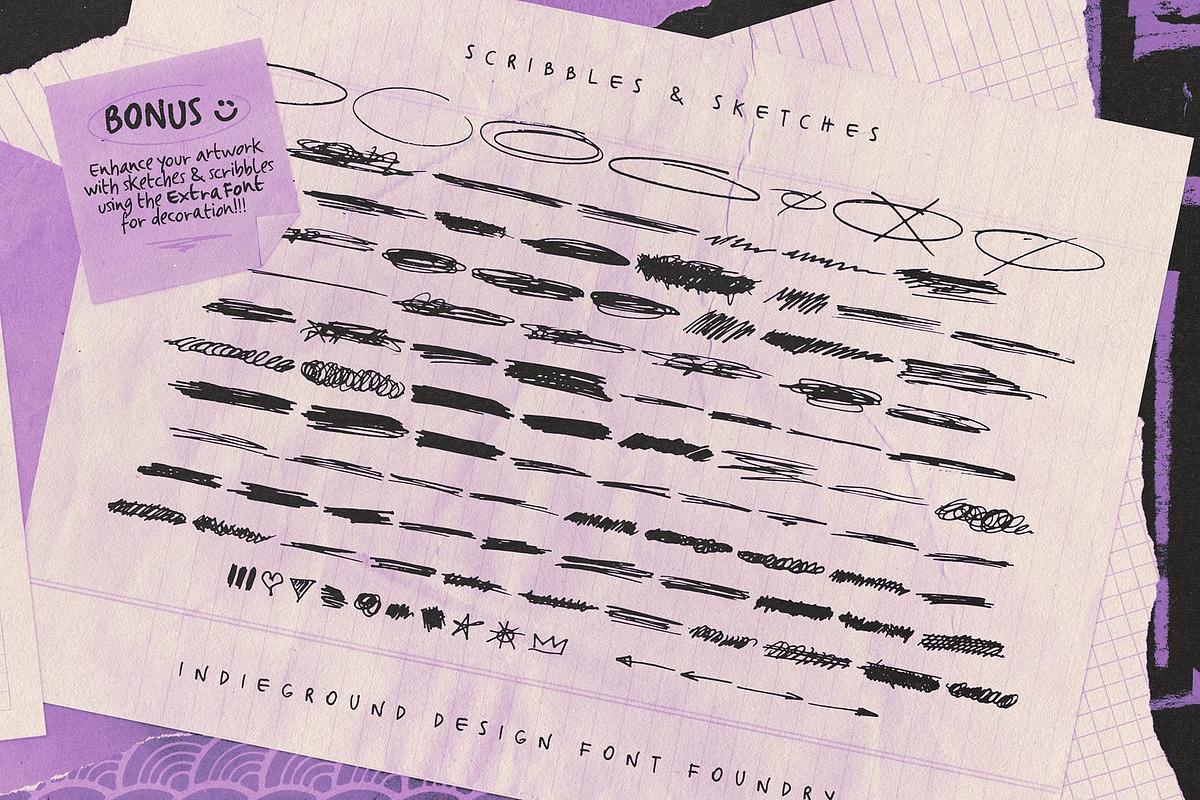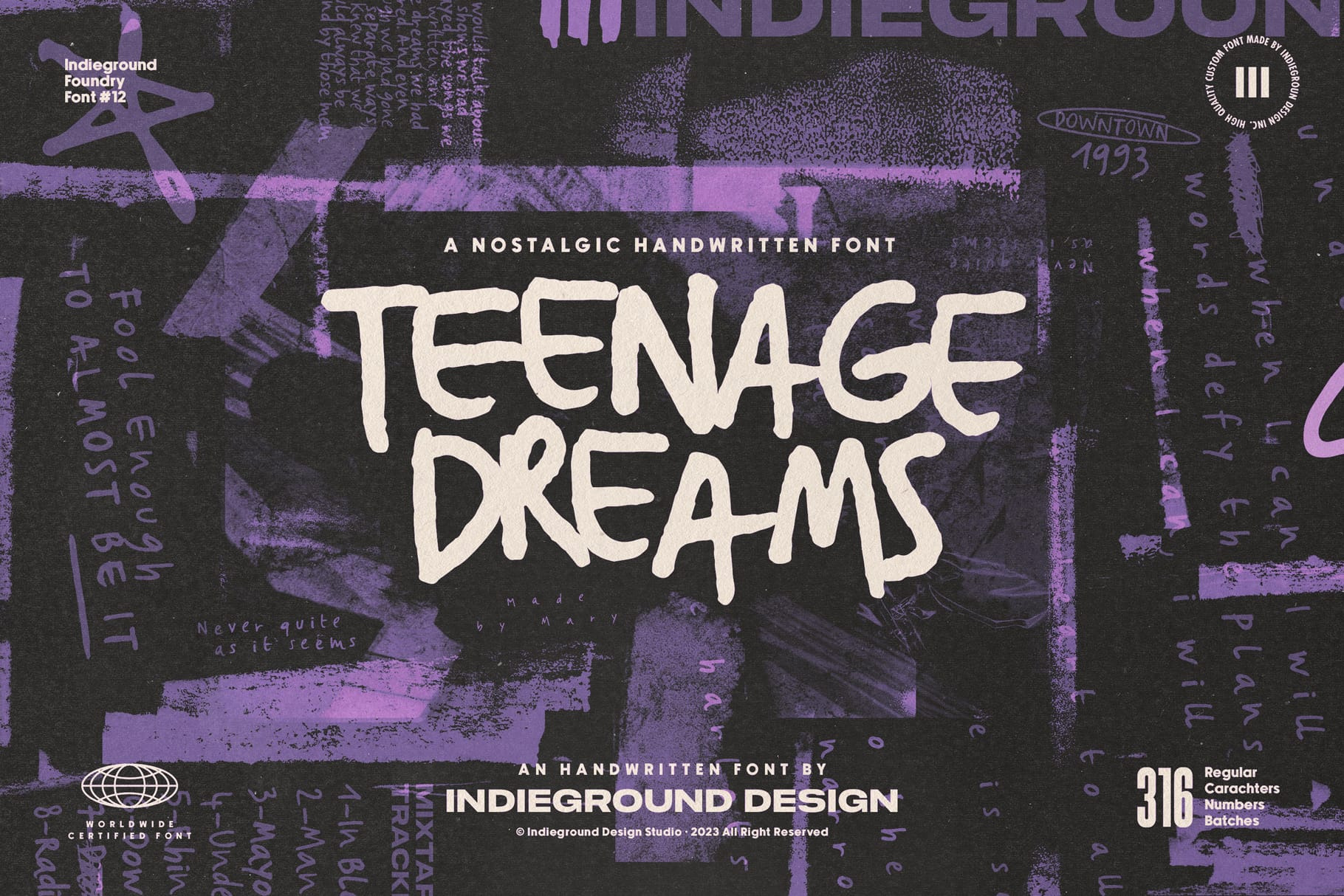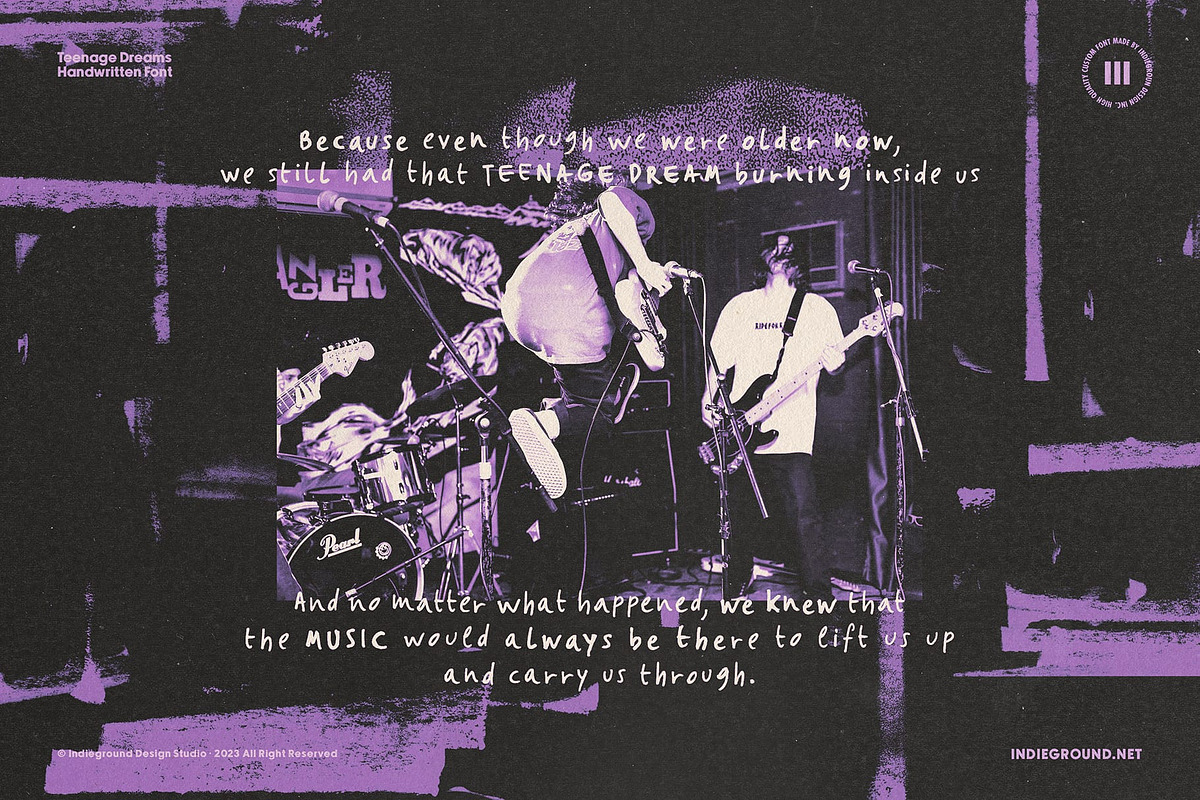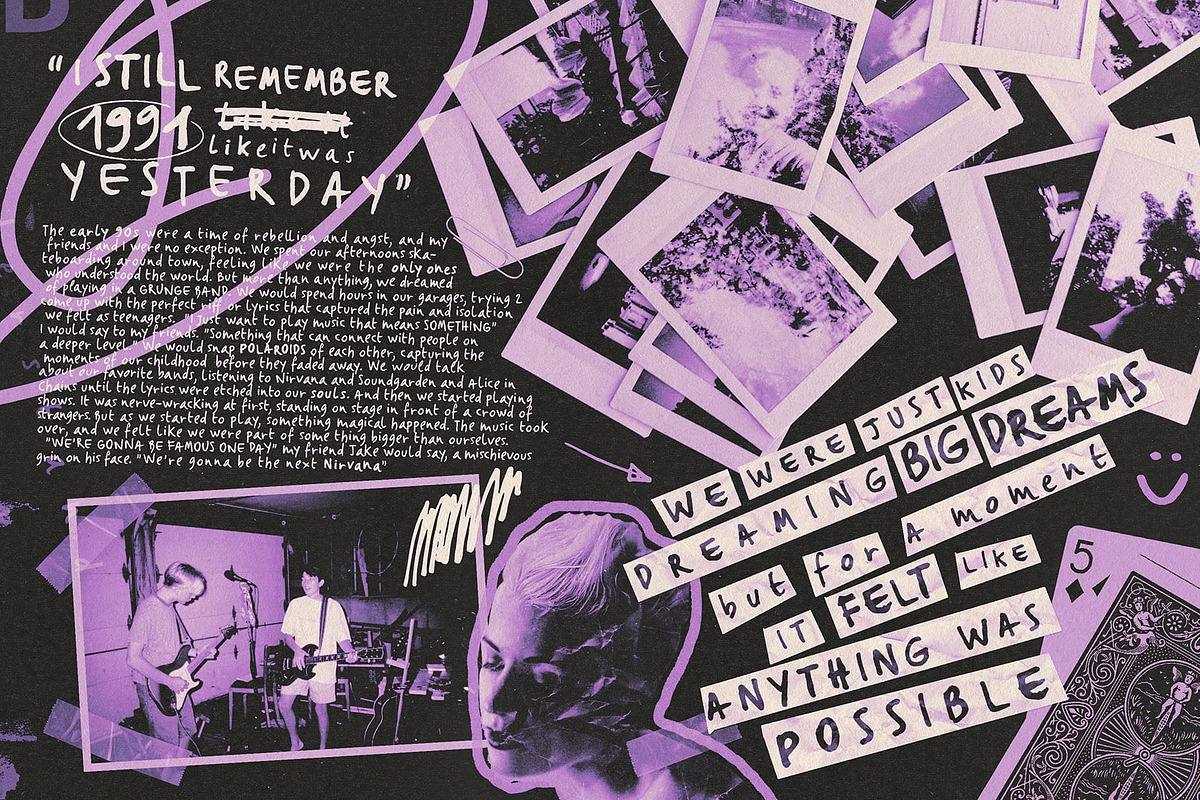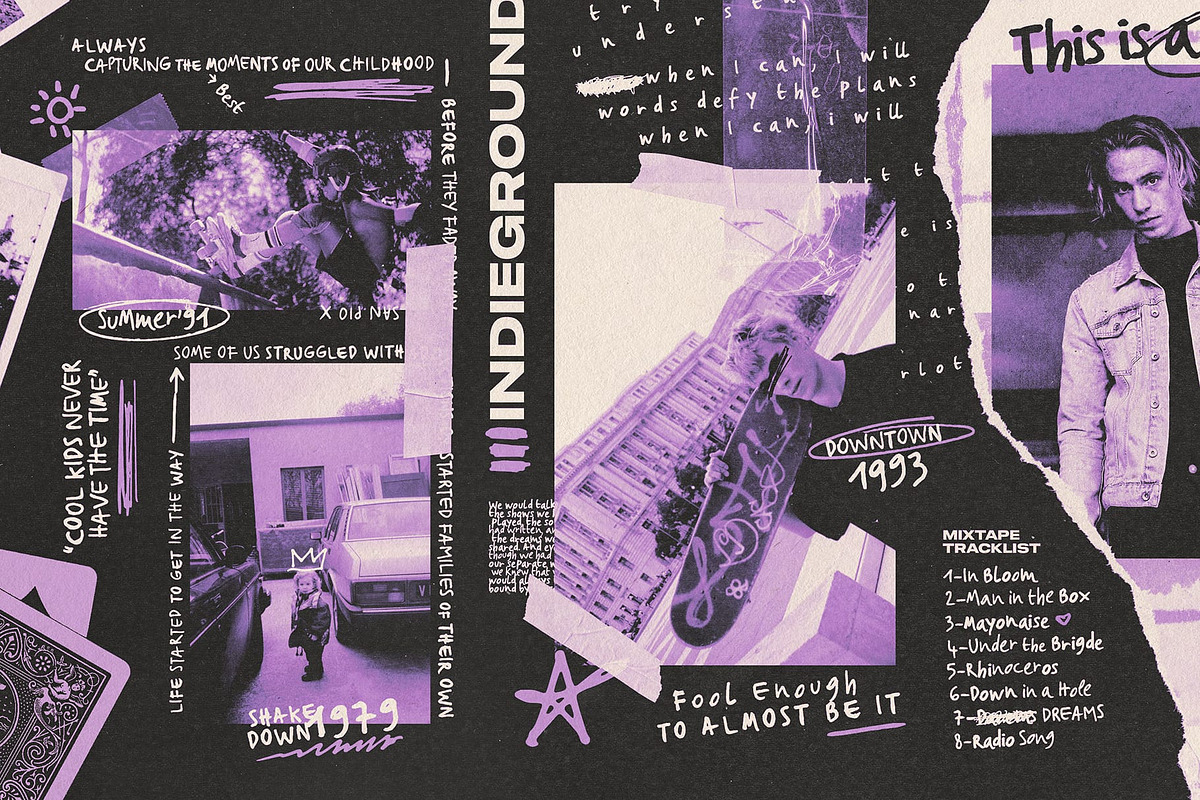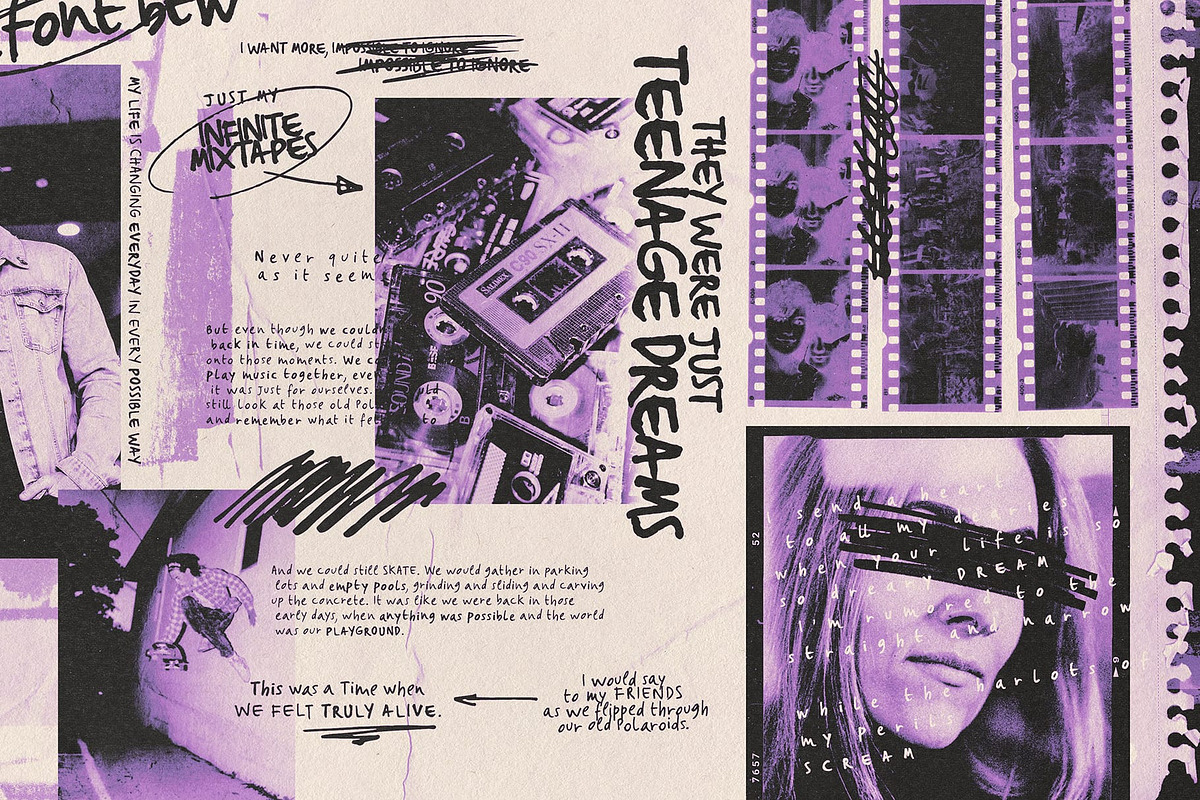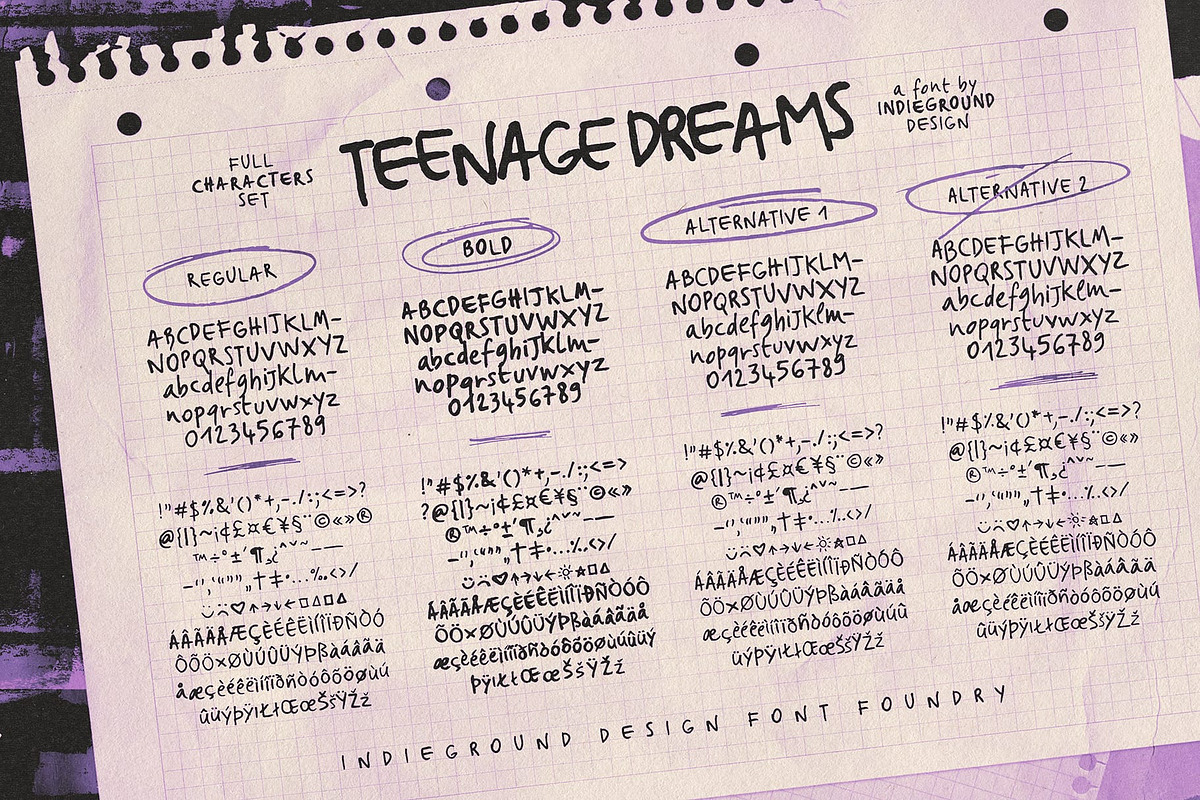
Teenage Dreams Font
Teenage Dreams Font by Indieground This handwritten font is ideal for bringing back 90s nostalgic atmospheres. With its indie nature, this grungy font will add a touch of spontaneity and style to any creative project. This font recreates the atmospheres of our teenage years in the 90s, when we listened to Smashing Pumpkins, wore Chucks, and went to indie gigs. We love thinking about that time of wonder, discovery and imagination, and Teenage Dreams is perfect for bringing them back into our creative projects. Achieve a realistic handwritten effect by mixing the 4 different versions in titles and covers, instantly creating typographic artwork with an alternative, intimate attitude. On top of that, we also added a 5th bonus version of this dreamy font, with scribbles and drawings you can add to your compositions. This way, you will get a grungy scrapbook effect while adding intensity and style to any project. It is awesome when used on dark, noisy backgrounds, or used on top of images and photographs!
Teenage Dreams is a grungy font ideal for artwork that wants to deliver 90s nostalgia and indie atmospheres. This handwritten font is what you need to recreate the intimate mood of a scrapbook. Looking for more graphic resources to bring back that 90s, indie effect? We have a few more to recommend from our shop: